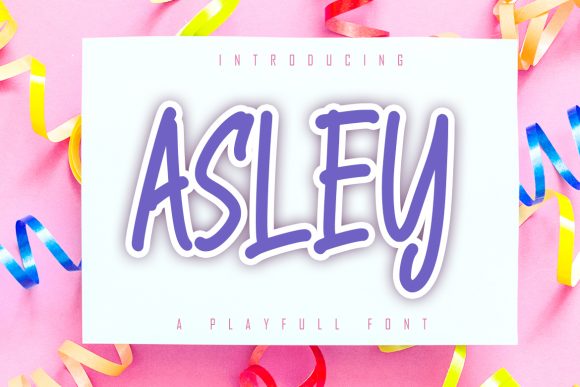
Introducing Asley Font - A Magical Handwritten Font That Sparkles!
Asley Font, a creation of Skiiller Studio, is not just a font; it's an artistic journey that captures the essence of childhood dreams. Exquisitely designed, Asley Font belongs to the display font family and stands out as the ultimate choice for children's books, posters, flyers, prints, and any design that seeks to ignite imagination.
With its simple yet enchanting handwritten style, Asley Font captivates the eyes of young readers, drawing them into a world of wonder and boundless creativity. Each letter, meticulously crafted with playful curves and whimsical strokes, dances across the page like a joyful melody. Children will delight in the stories that unfold before them, their imaginations soaring as they navigate through enchanted forests, meet friendly creatures, and embark on thrilling adventures.
Asley Font is more than just a visual treat. It's a gateway to unlocking a child's potential, fostering their love for reading and igniting their passion for storytelling. Its clear and legible design ensures effortless reading, allowing young minds to focus on the narrative rather than struggling to decipher complex letterforms.
Designers and educators alike will find Asley Font an invaluable tool. Its versatility extends beyond children's literature, making it suitable for a variety of projects, from greeting cards and invitations to social media graphics and branding materials. Its charming and playful nature adds a touch of magic to any design, leaving a lasting impression on viewers.